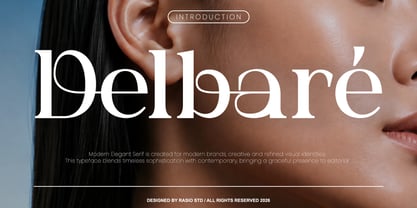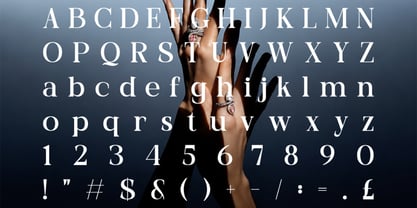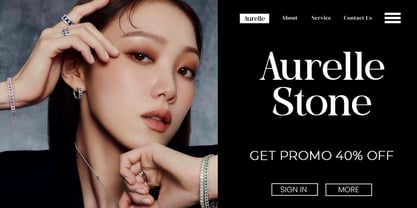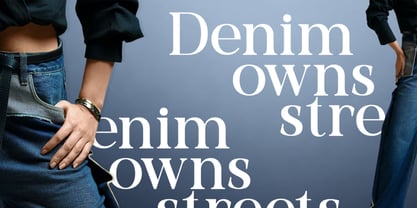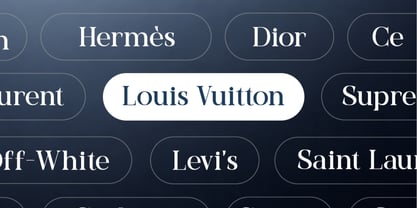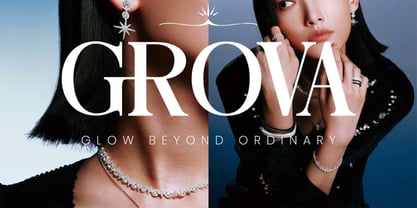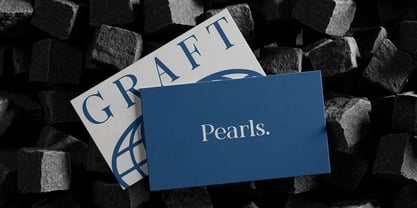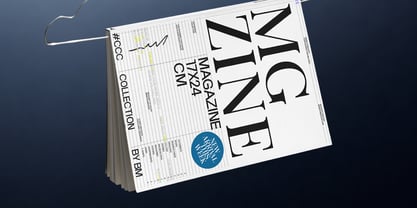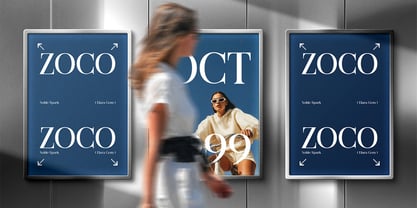
Delbare
von Rasio Studio
Die Schriftfamilie Delbare wurde von Fajar Indra entworfen und von Rasio Studio veröffentlicht. Delbare enthält 1 Stile. Mehr über diese Familie
Delbare is a contemporary serif typeface that blends refined sophistication with distinctive ligature-driven design. The font features graceful high-contrast strokes, smooth transitions, and carefully sculpted letterforms that create a luxurious yet approachable visual character. Its elegant proportions and unique ligature combinations add personality without sacrificing readability, making it highly effective for premium branding and editorial-focused typography.
Relevance and Use Case is perfect for luxury and contemporary branding projects where typography plays a central role in establishing visual identity. The font works exceptionally well for fashion labels, beauty products, jewelry collections, boutique businesses, magazine publications, creative agencies, luxury packaging, website headers, editorial campaigns, and premium marketing materials that require a sophisticated, modern, and memorable typographic presence.
Designer: Fajar Indra
Foundry: Rasio Studio